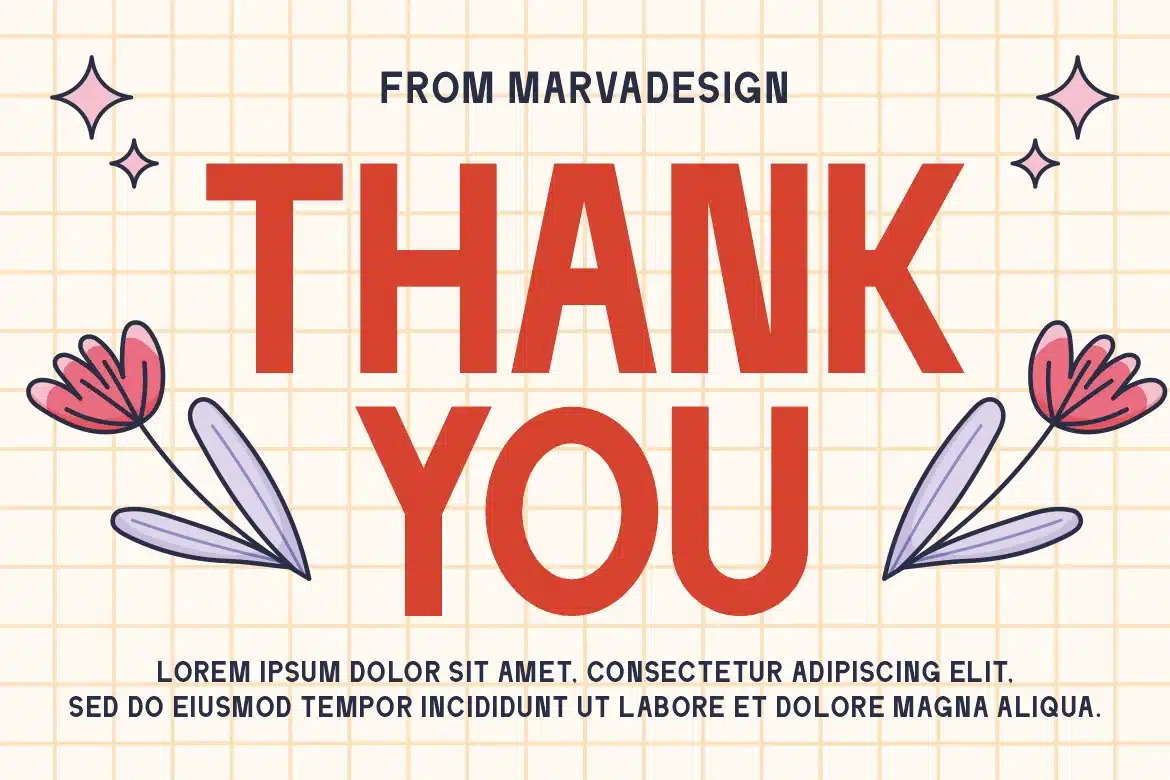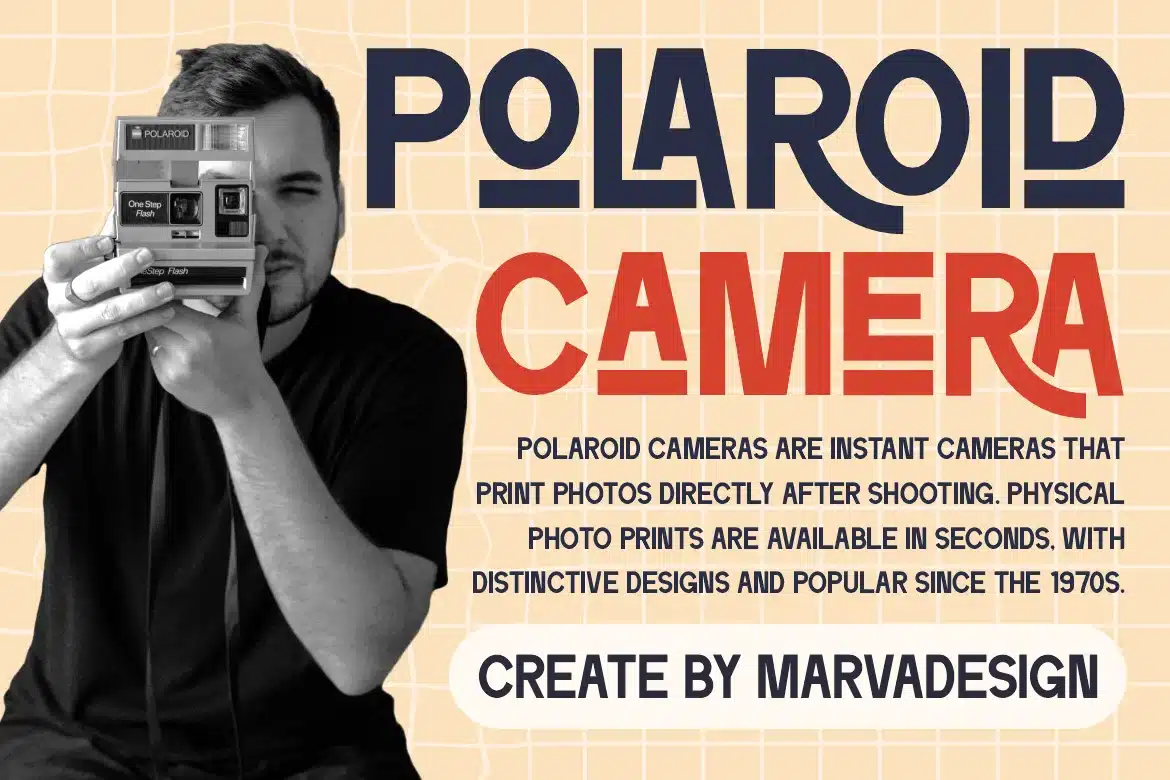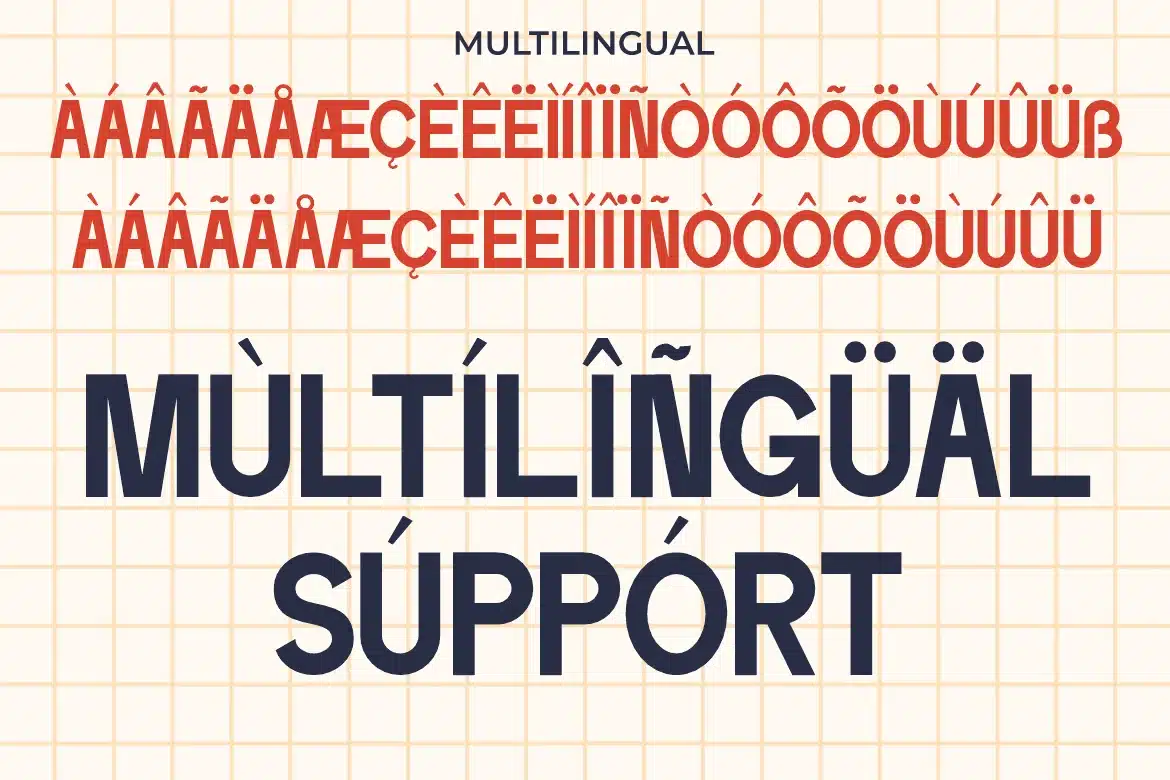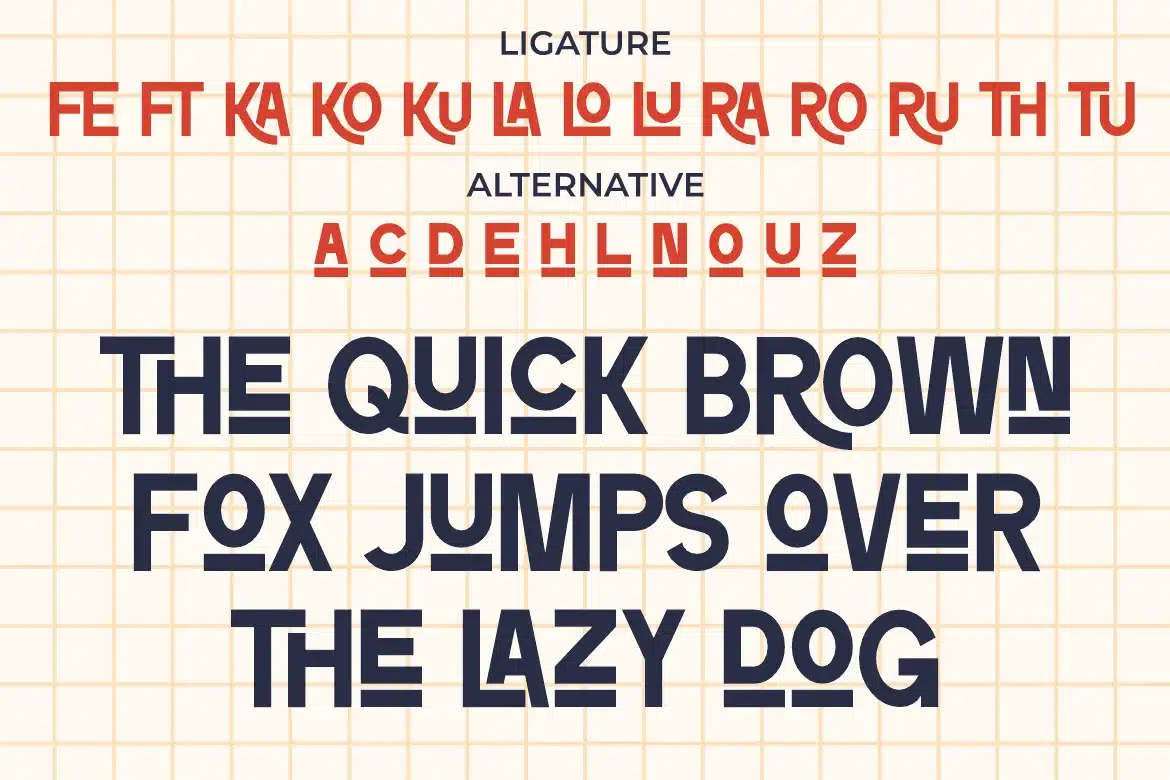
Ralokun – Retro Sans Serif Font
Introducing our new product Ralokun Font -Modern Sans Serif Font
Ralokun Font - Modern Sans Serif Font authentic display font. The font is suitable for any branding project like logo, Template Design, Product and many more. outstanding in a wide range of contexts.